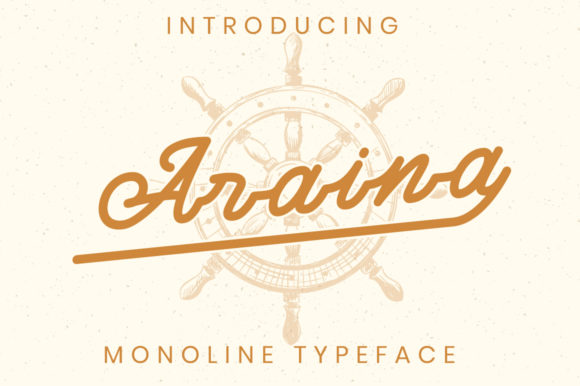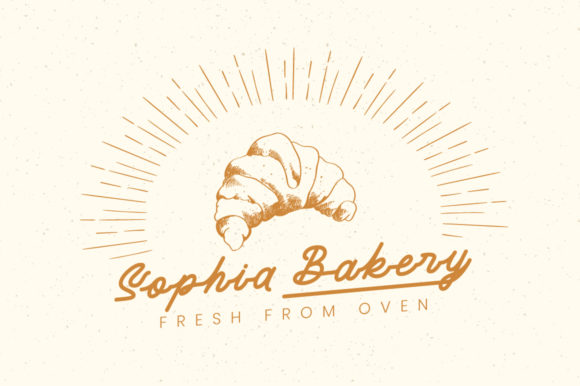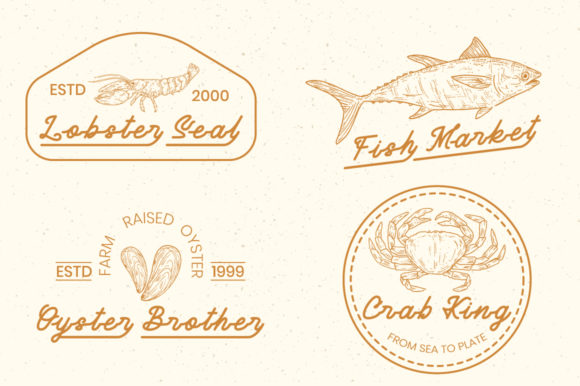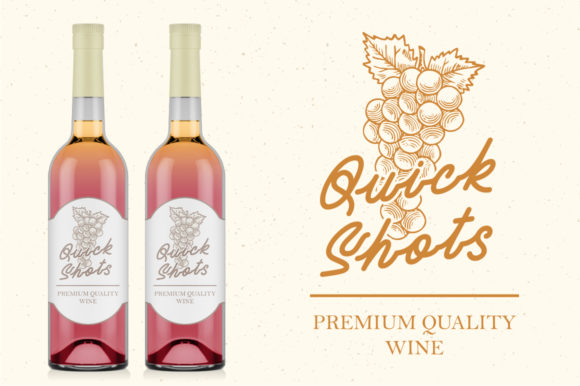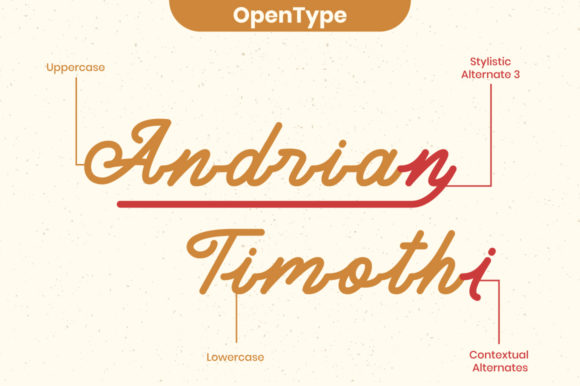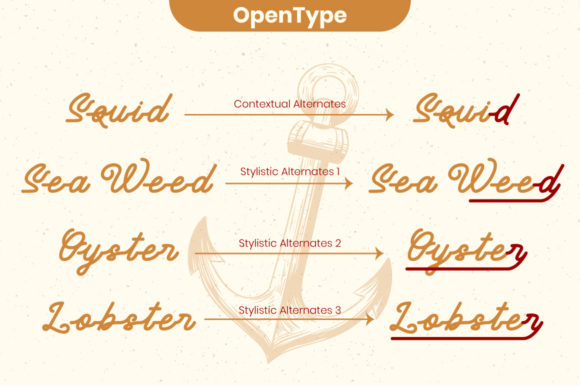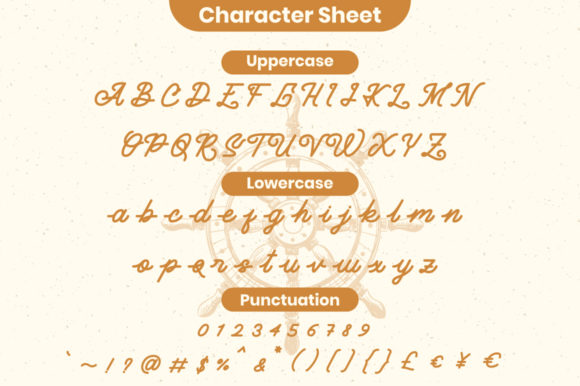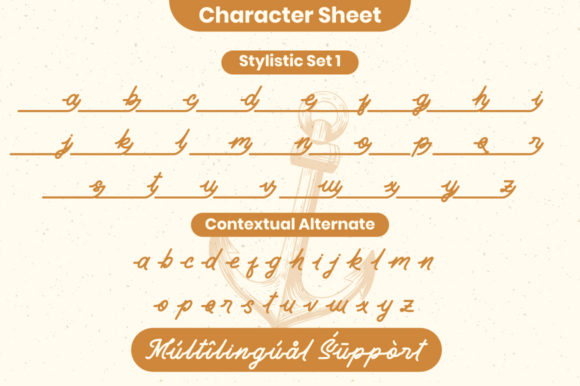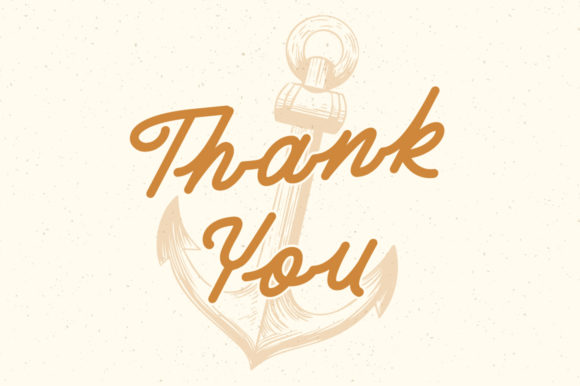
Araina Font
About Araina Font
Araina simplifies elegance into one truly outstanding handwritten font. It maintains its classy calligraphic influences while feeling timeless and fresh. Use it to bring any DIY project to life!